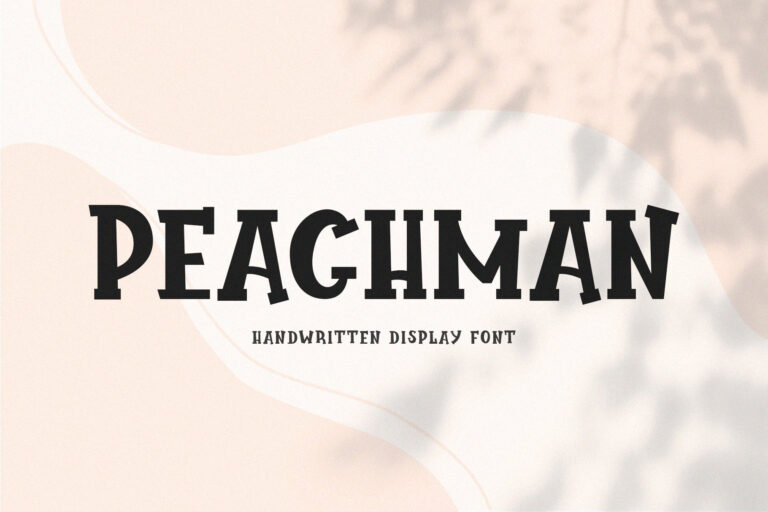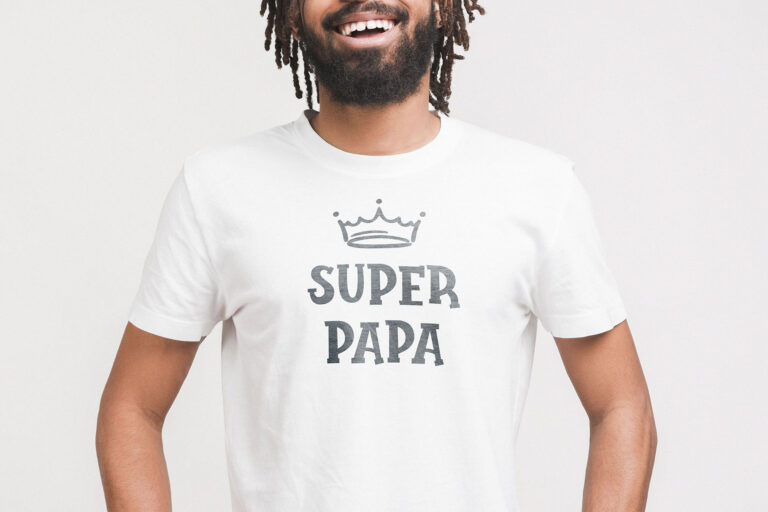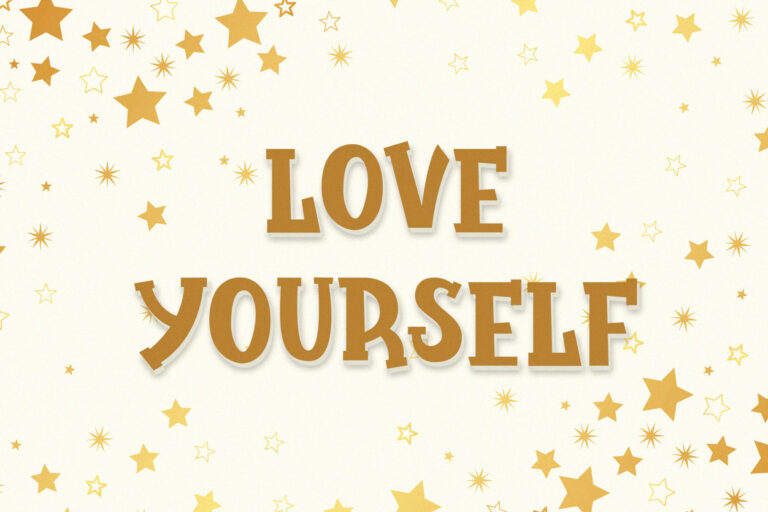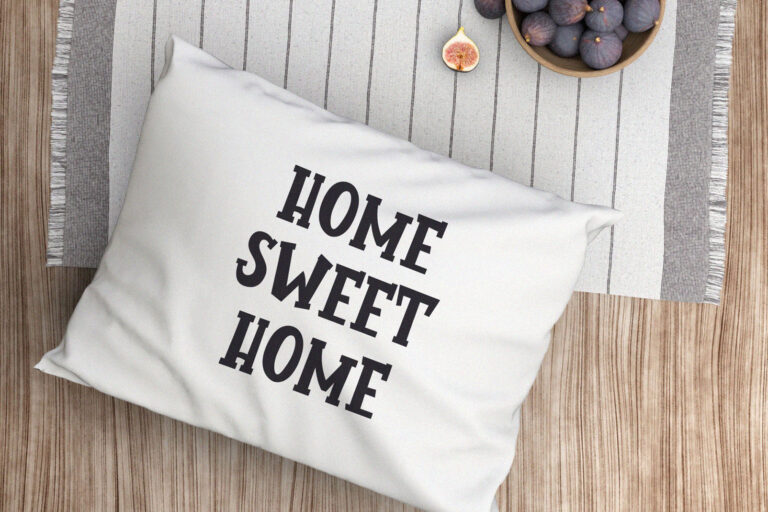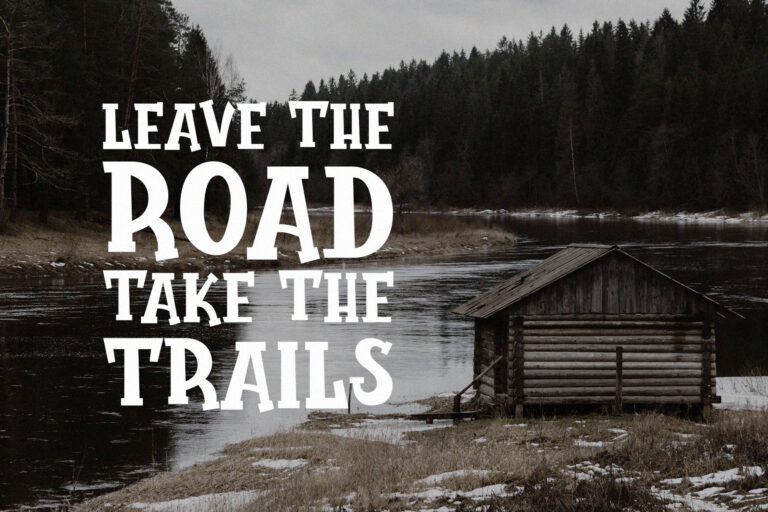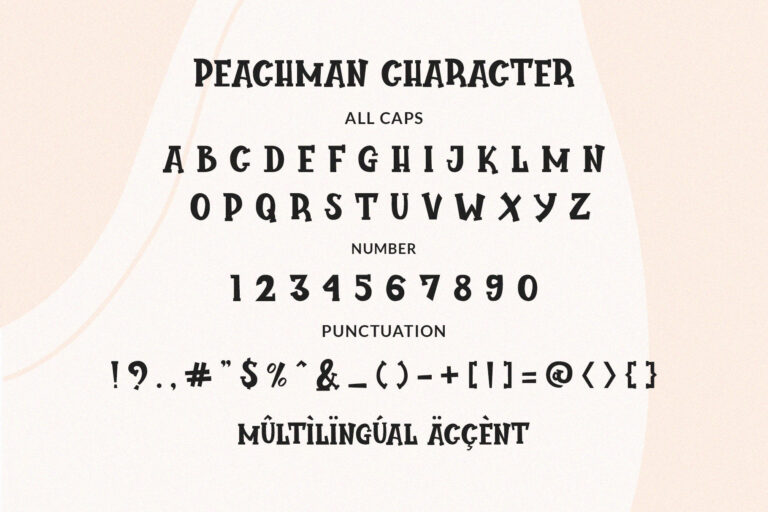
- Peachman // Handwritten Font
Peachman is a cute, funny, sweet handwritten font. Clean and soft, this font is the perfect fit for all of your crafty DIY projects, cricut, logos, branding, social media, etc.